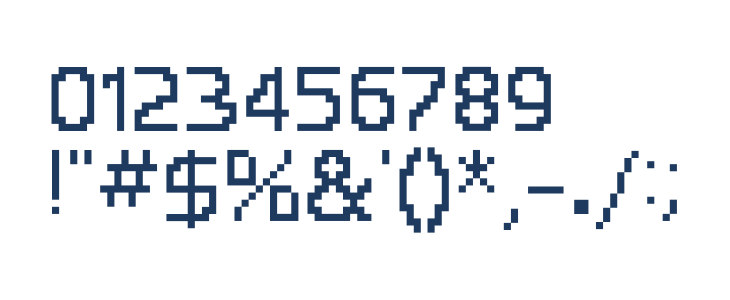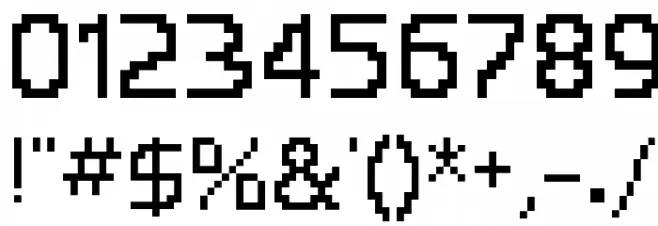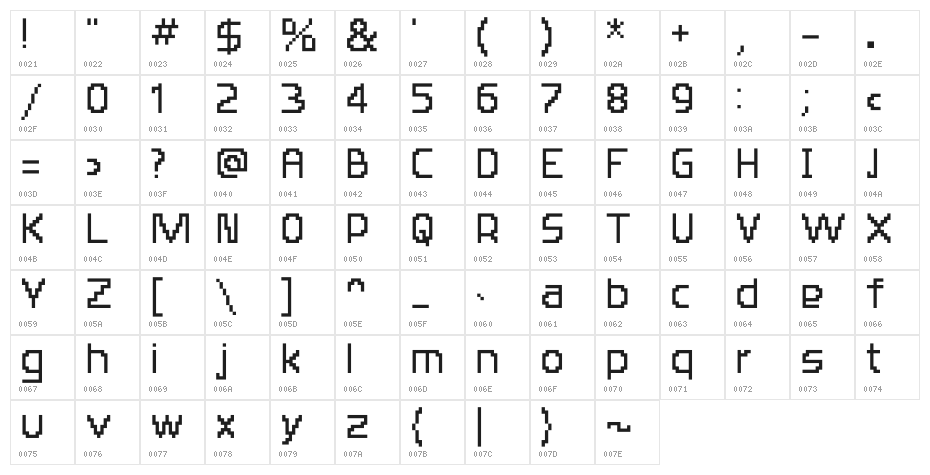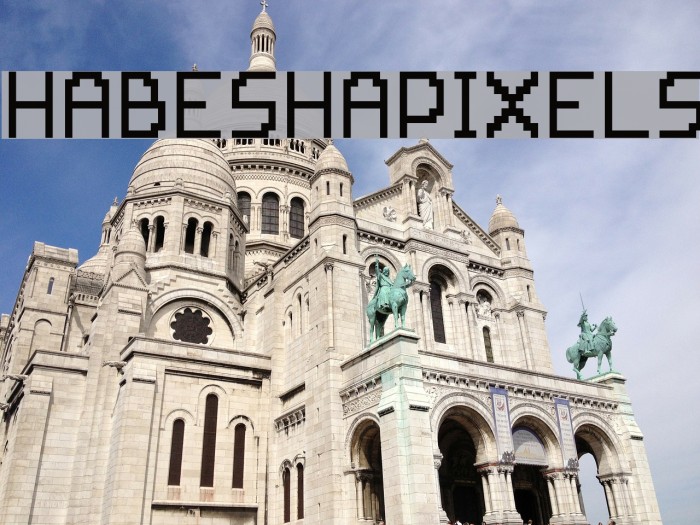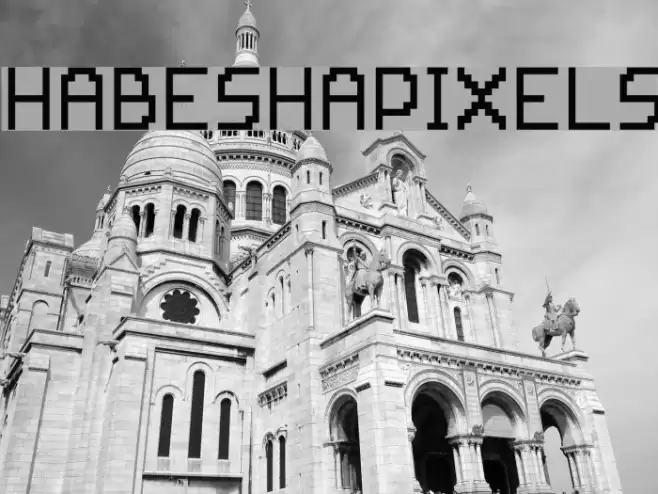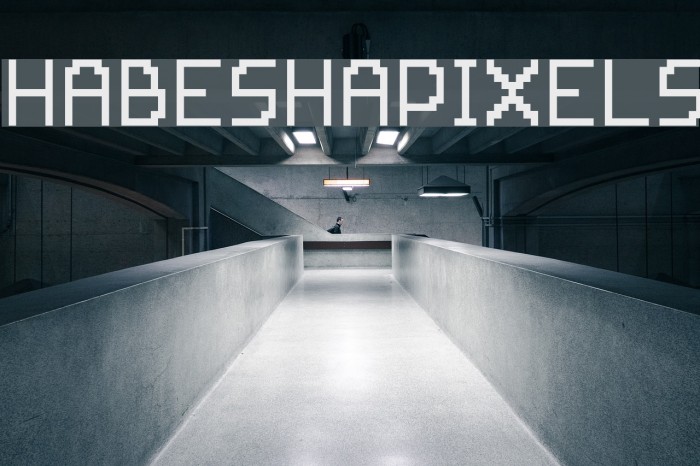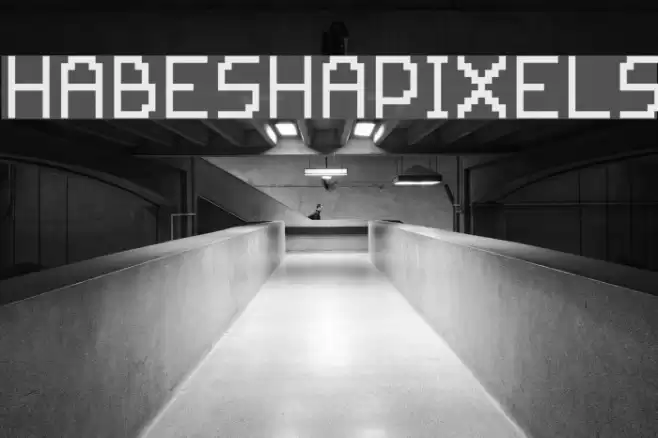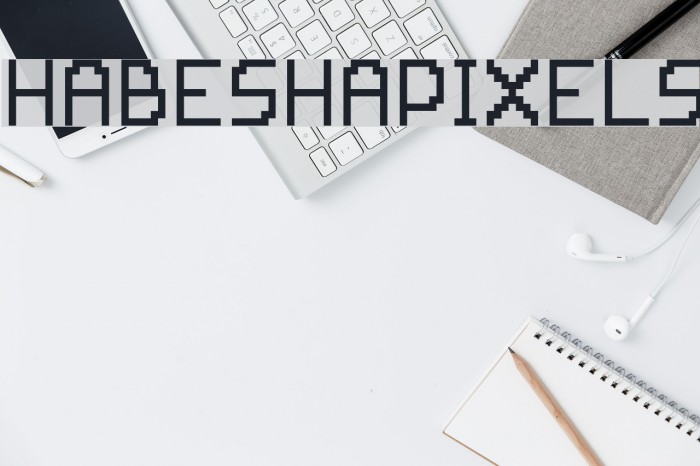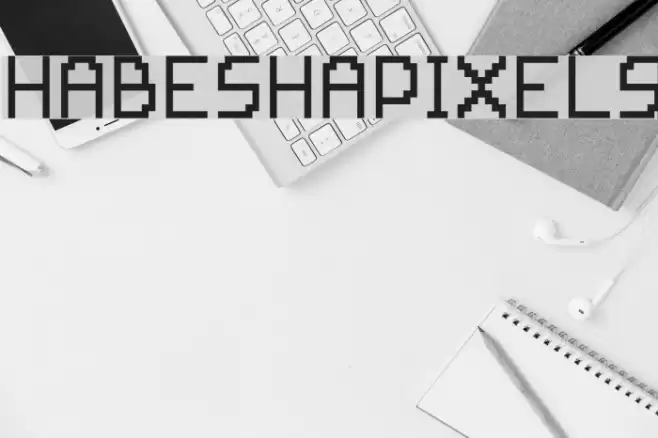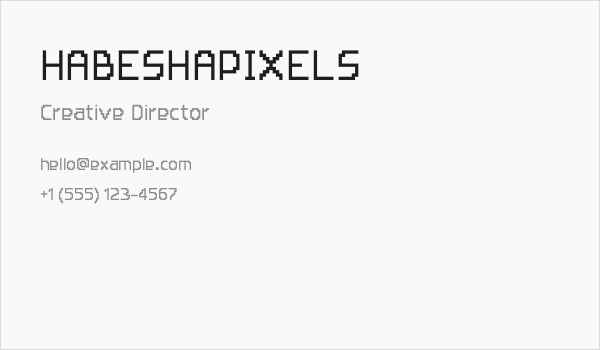
HABESHAPIXELS Font
HABESHAPIXELS Description
This font features a pixelated, blocky design reminiscent of early digital displays and retro video games. Each character is constructed with a uniform grid-like structure, giving it a distinctly digital and geometric appearance. The uppercase and lowercase letters maintain a consistent height and width, contributing to a cohesive and orderly look. The numerals and special characters follow the same pixelated style, ensuring uniformity across all glyphs. This font's simplicity and clarity make it ideal for digital-themed projects, where a nostalgic or tech-inspired aesthetic is desired.
| Use Case | Headlines, Logos, Digital displays |
| Proposed Projects | Ideal for retro video game graphics, digital art projects, tech-themed posters, and any design requiring a nostalgic digital look. |